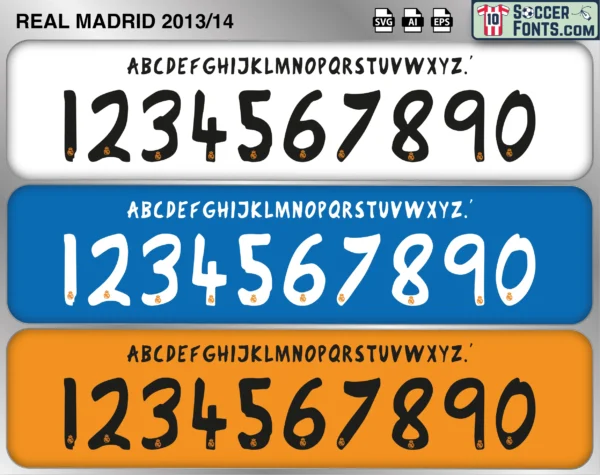
Real Madrid 2013-14 Font
The Real Madrid 2013-14 font is an editable soccer jersey lettering design in vector format inspired by the Real Madrid kit style used during the 2013-14 football season. This football font artwork is prepared for football shirt recreations, custom jersey projects, football kit mockups and sports graphic design workflows.
The Real Madrid 2013-14 font became inseparably linked with one of the greatest moments in the club’s history. Sergio Ramos’ dramatic equalizer in stoppage time and the eventual 4-1 victory remain among the most iconic scenes in European football. Cristiano Ronaldo also completed one of the finest individual seasons of his career, finishing as the Champions League’s top scorer with a record-breaking tally. Real Madrid shirts from this era remain among the most sought-after by football shirt collectors because of their connection with La Décima and the birth of one of the club’s greatest modern teams. The Real Madrid 2013-14 font reflects a season of triumph, history and European glory that forever changed the club’s legacy.